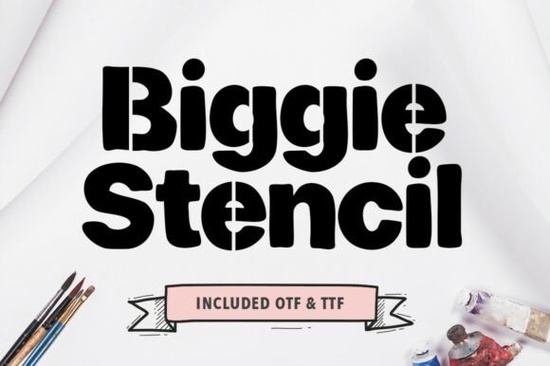
If you need a typeface that feels bold, industrial, and unmistakably strong, the Biggie Stencil Font is worth a close look. It draws from military crate markings, warehouse signage, and urban street graphics to deliver a structured, confident letterform. Each character features clean stencil gaps and sharp geometry, giving your text a powerful presence without sacrificing readability. Whether you're a designer working on branding or a print-on-demand seller looking for an edgy product font, this typeface fills a specific and useful role.
What makes a stencil font different from a regular bold font?
A regular bold font simply thickens the strokes of each letter. A stencil font, on the other hand, introduces intentional breaks in the letterforms the gaps that mimic how stencils work in real life. Those cuts are not random. They're placed where the letter can still be recognized quickly at a glance.
Biggie Stencil Font does this with careful precision. The cuts are balanced, the spacing is even, and the overall shape of each letter stays clear. That's what separates a well-designed stencil typeface from one that just looks broken. If you've ever seen a stencil font where you couldn't tell an "E" from an "F," you know the difference good design makes.
Who is this font designed for?
This typeface works well for a wide range of creative people:
- Logo and branding designers who want a strong, no-nonsense wordmark
- Print-on-demand sellers creating t-shirts, mugs, and posters with bold statements
- Small business owners designing packaging, labels, or signage
- Crafters and hobbyists making stencils, wall art, or DIY decor projects
- Social media creators who need attention-grabbing text overlays
Basically, anyone who needs their text to feel tough, confident, and clean at the same time can benefit from this style.
What kinds of projects work best with stencil typefaces?
Stencil fonts aren't universal you wouldn't set a novel in one. But for specific uses, they're hard to beat:
- T-shirt designs Military and streetwear graphics practically live on stencil fonts.
- Event posters Concert flyers, gym promotions, and sports events benefit from the bold structure.
- Product packaging Think tool brands, craft beer labels, or outdoor gear.
- Social media graphics Quote posts and sale announcements stand out with heavy, stencil-style text.
- Signage and wayfinding Stencil lettering has roots in actual warehouse and road signs, so it feels authentic in that context.
How does Biggie Stencil compare to clean sans-serif fonts?
A clean sans-serif like Poris gives you versatility and legibility across long blocks of text. It's the safe, professional choice for body copy, websites, and corporate materials.
Biggie Stencil Font serves a different purpose. It's a display typeface made for headlines, logos, and short bursts of text where impact matters more than reading speed. The stencil cuts add texture and attitude that a smooth sans-serif simply doesn't have.
Does it work for both print and screen?
Yes. The letter spacing and stroke weight in Biggie Stencil Font are balanced enough to render clearly on monitors and print well at various sizes. You can use it for digital mockups, web banners, and printed merchandise without running into legibility problems as long as you're using it for short, prominent text rather than paragraphs.
- ✅ Check your license Make sure the license covers your intended use, especially for print-on-demand or commercial products.
- ✅ Pair it wisely Use a simple sans-serif or clean serif for body text. Don't stack two heavy display fonts together.
- ✅ Use it at larger sizes Stencil gaps can blur at very small sizes. Test your design at the final output dimensions.
- ✅ Keep text short Headlines, slogans, and single words look best with this style.
- ✅ Test on your target medium Preview on both screen and print if possible, since colors and resolution can affect how the gaps appear.